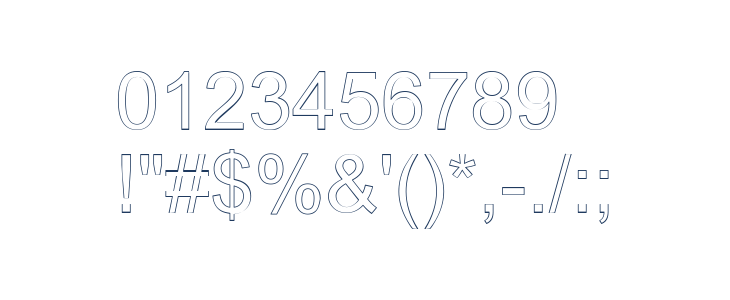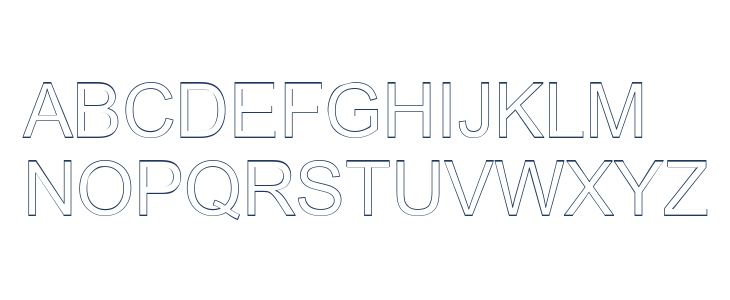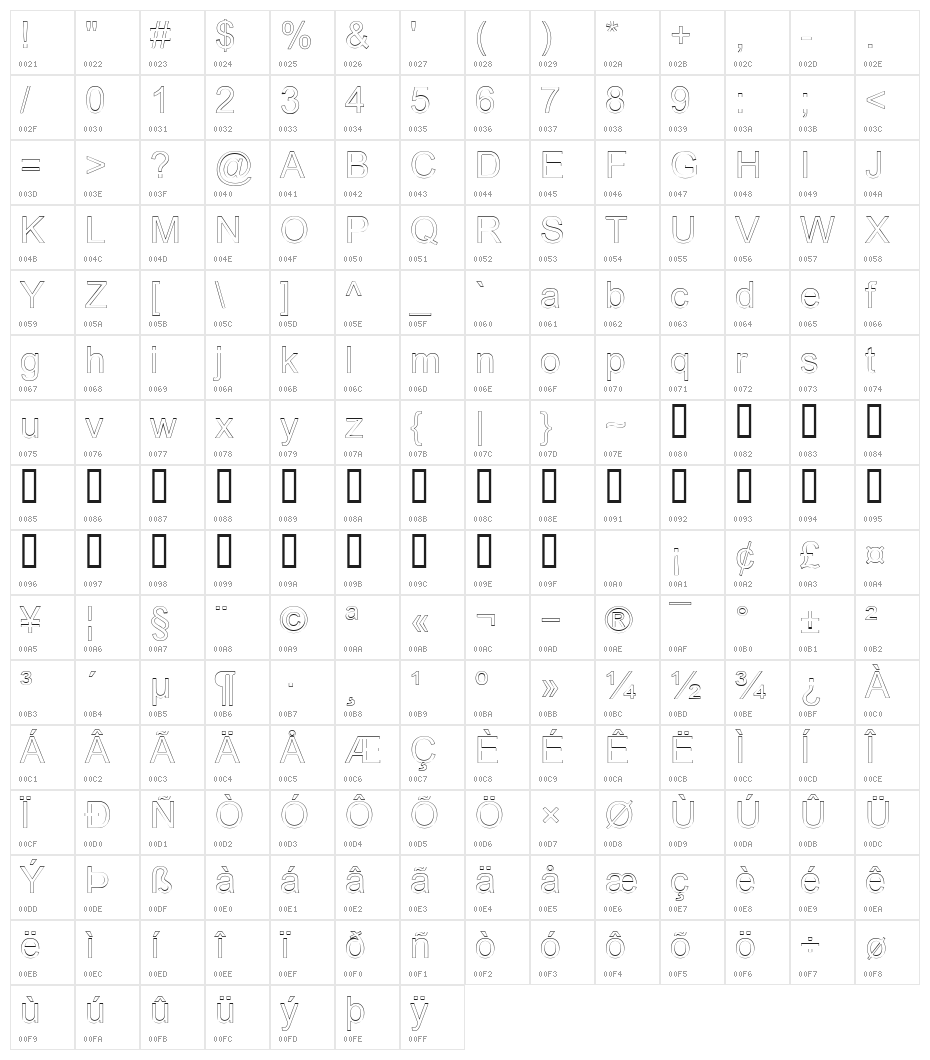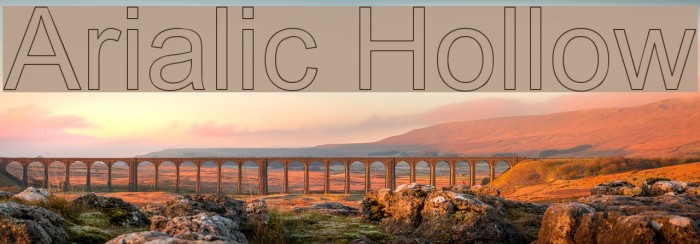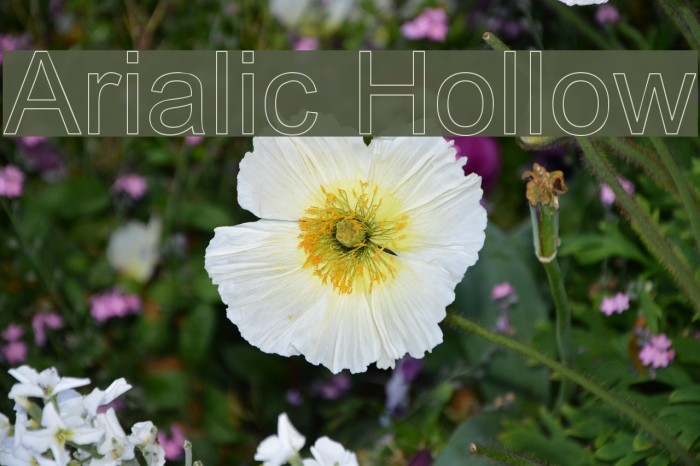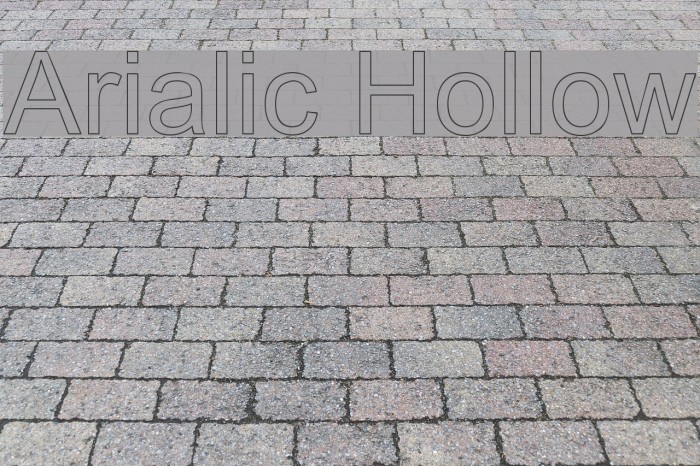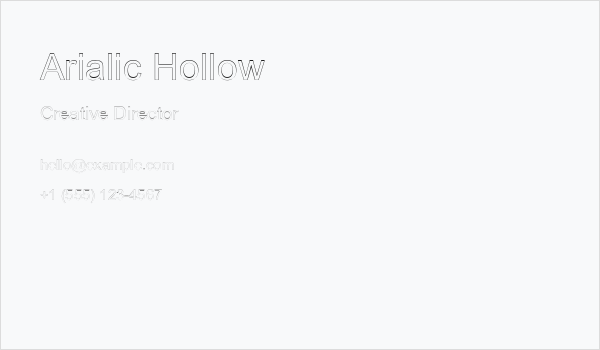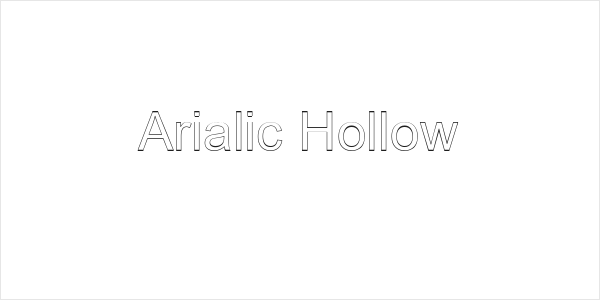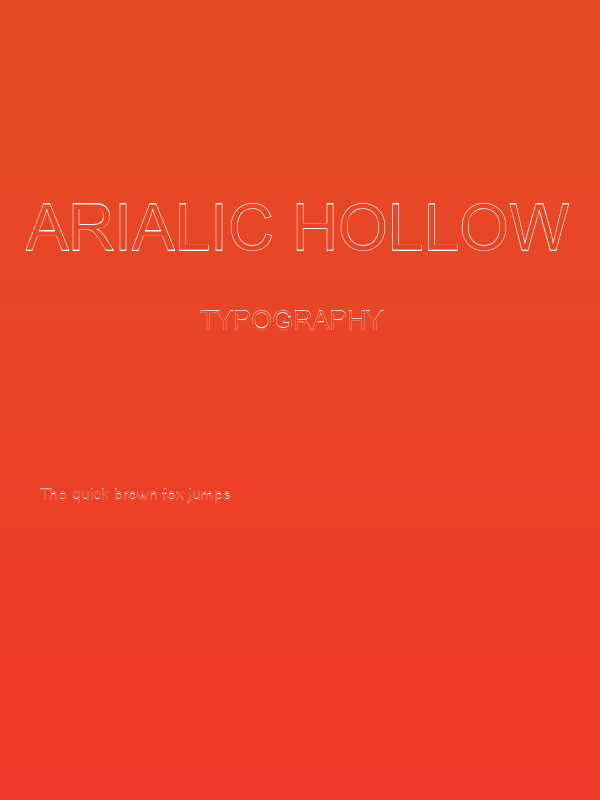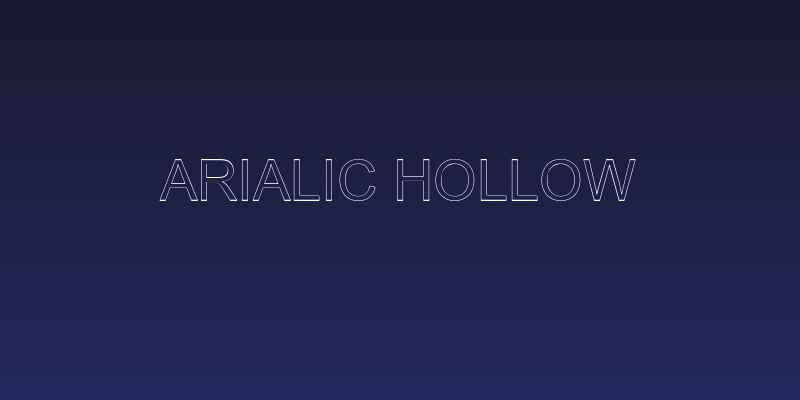
Arialic Hollow Font
Arialic Hollow Description
This font features a clean and modern sans-serif design with a distinctive hollow effect. Each character is outlined, creating a light and airy appearance while maintaining legibility. The uppercase and lowercase letters are well-proportioned, and the numerals are consistent in style. The special characters are clearly defined, adding versatility to the font's application. Its geometric structure and open forms make it suitable for a variety of design contexts, offering a unique aesthetic that stands out without overwhelming the viewer.
Proposed ProjectsIdeal for branding, posters, and digital media where a modern and airy aesthetic is desired.